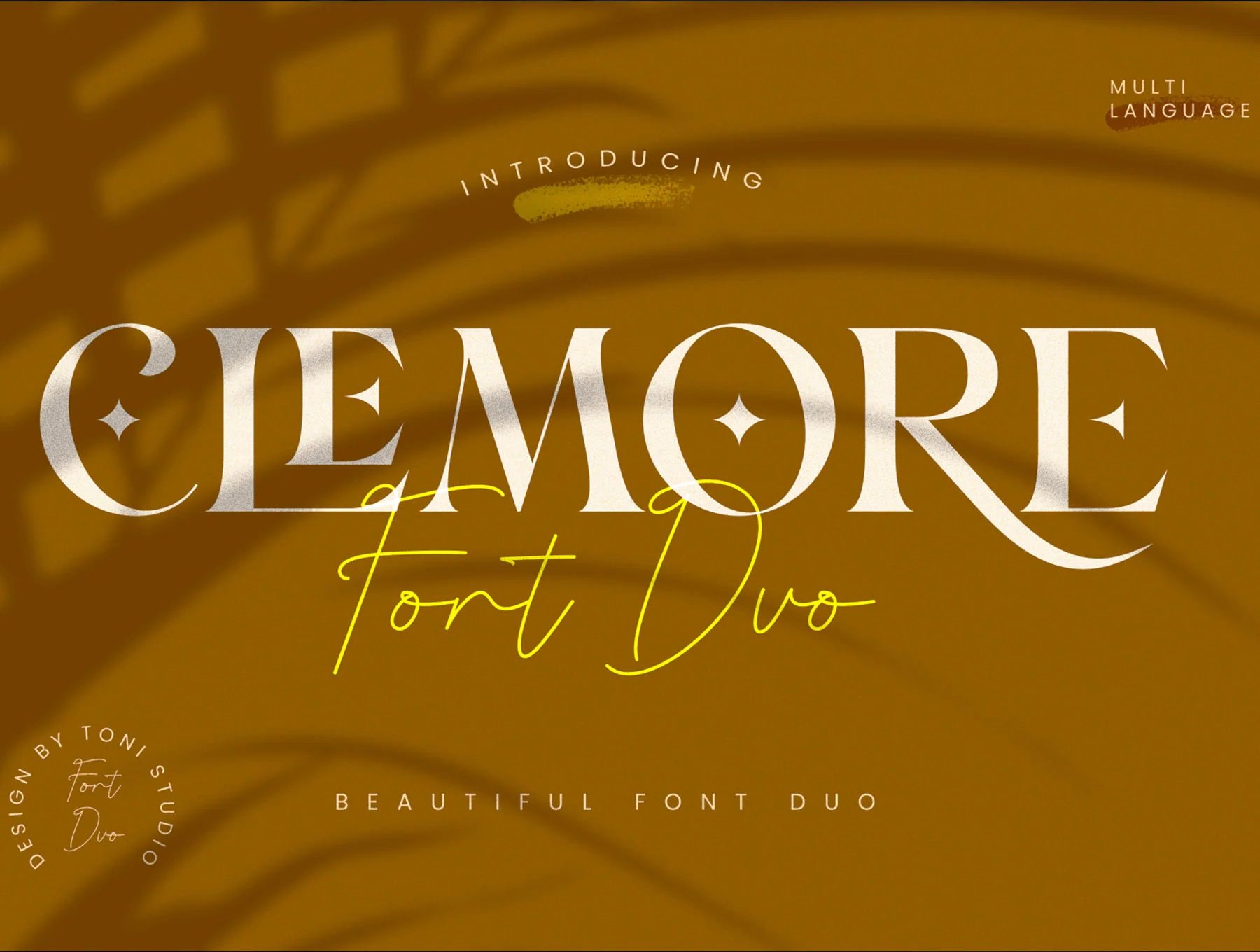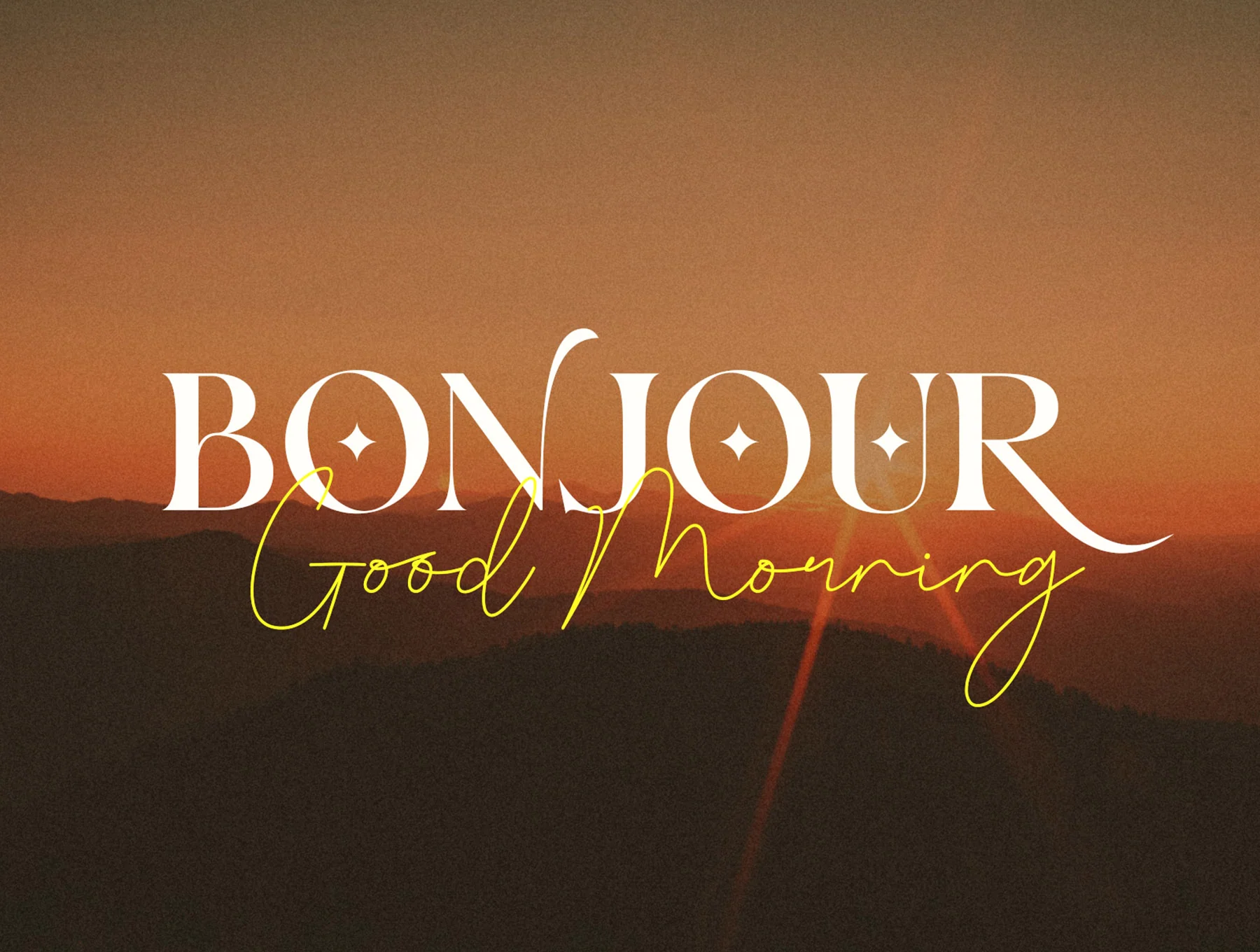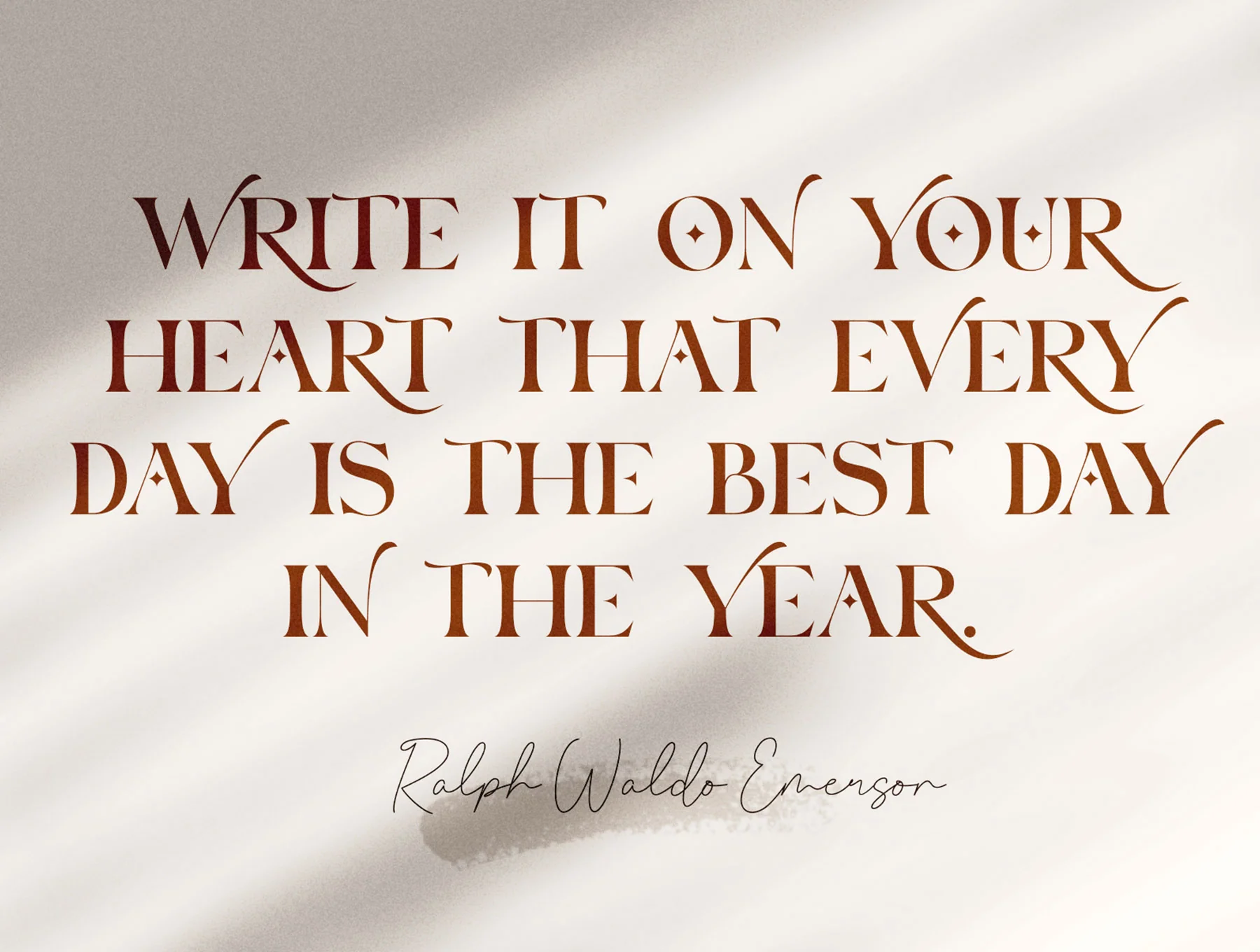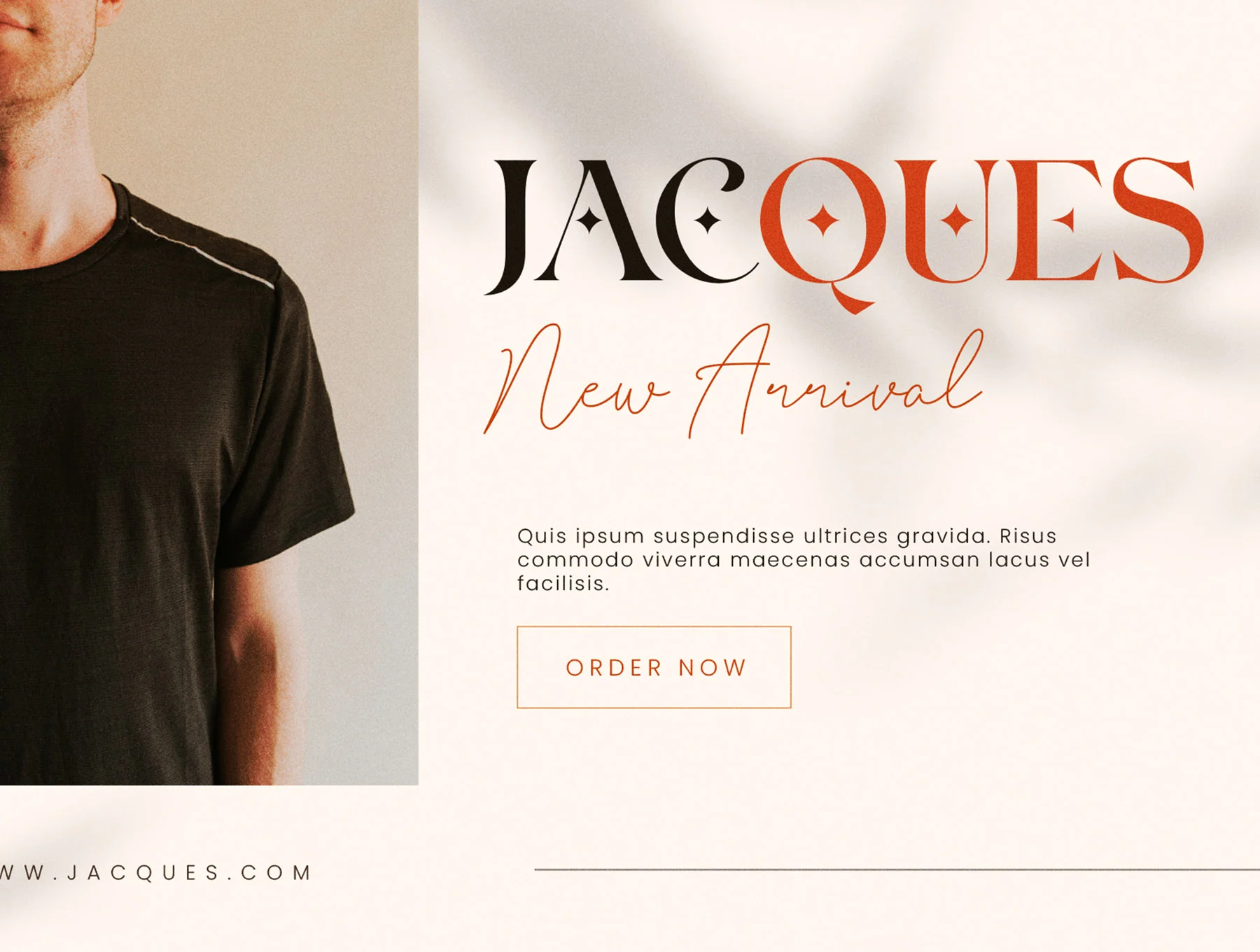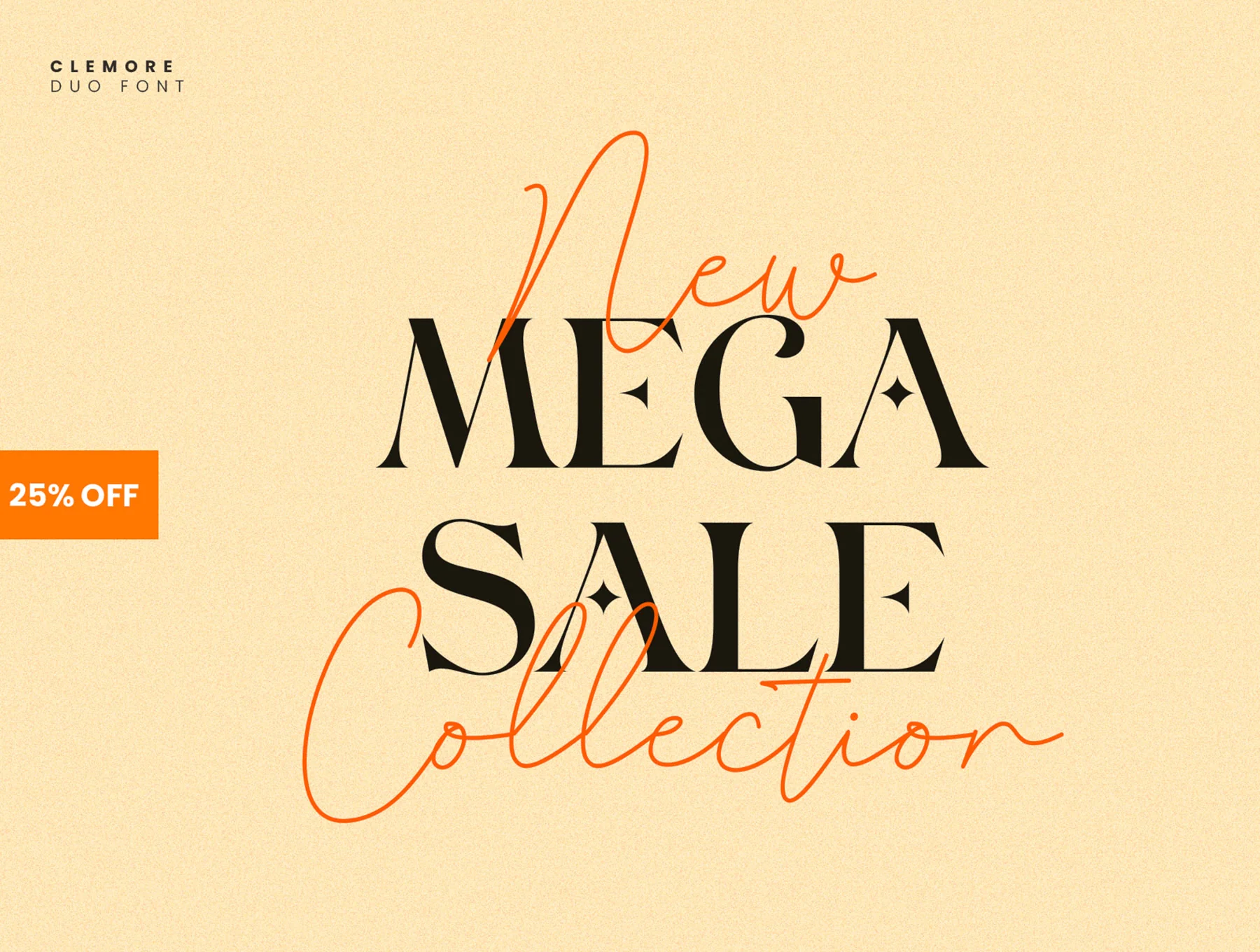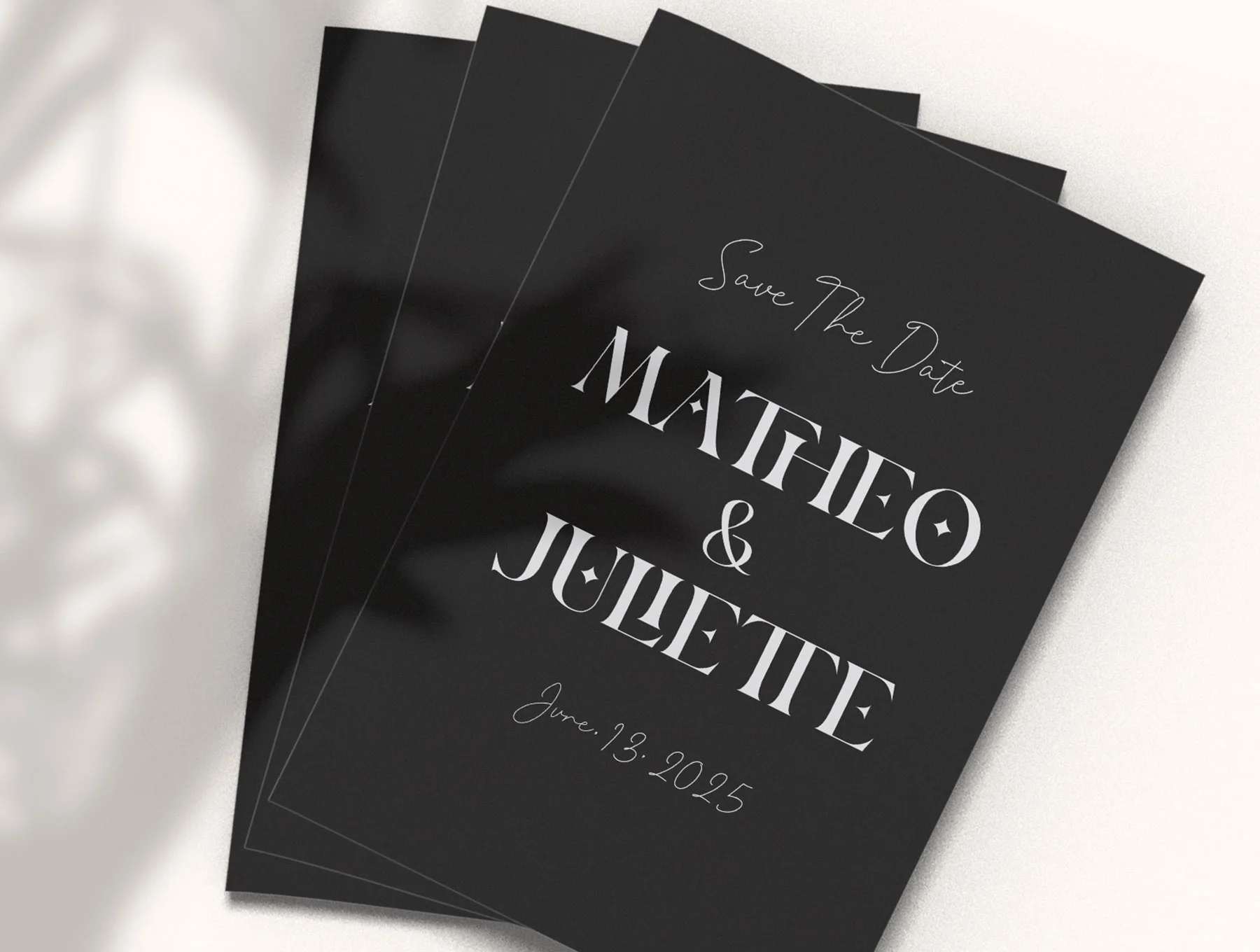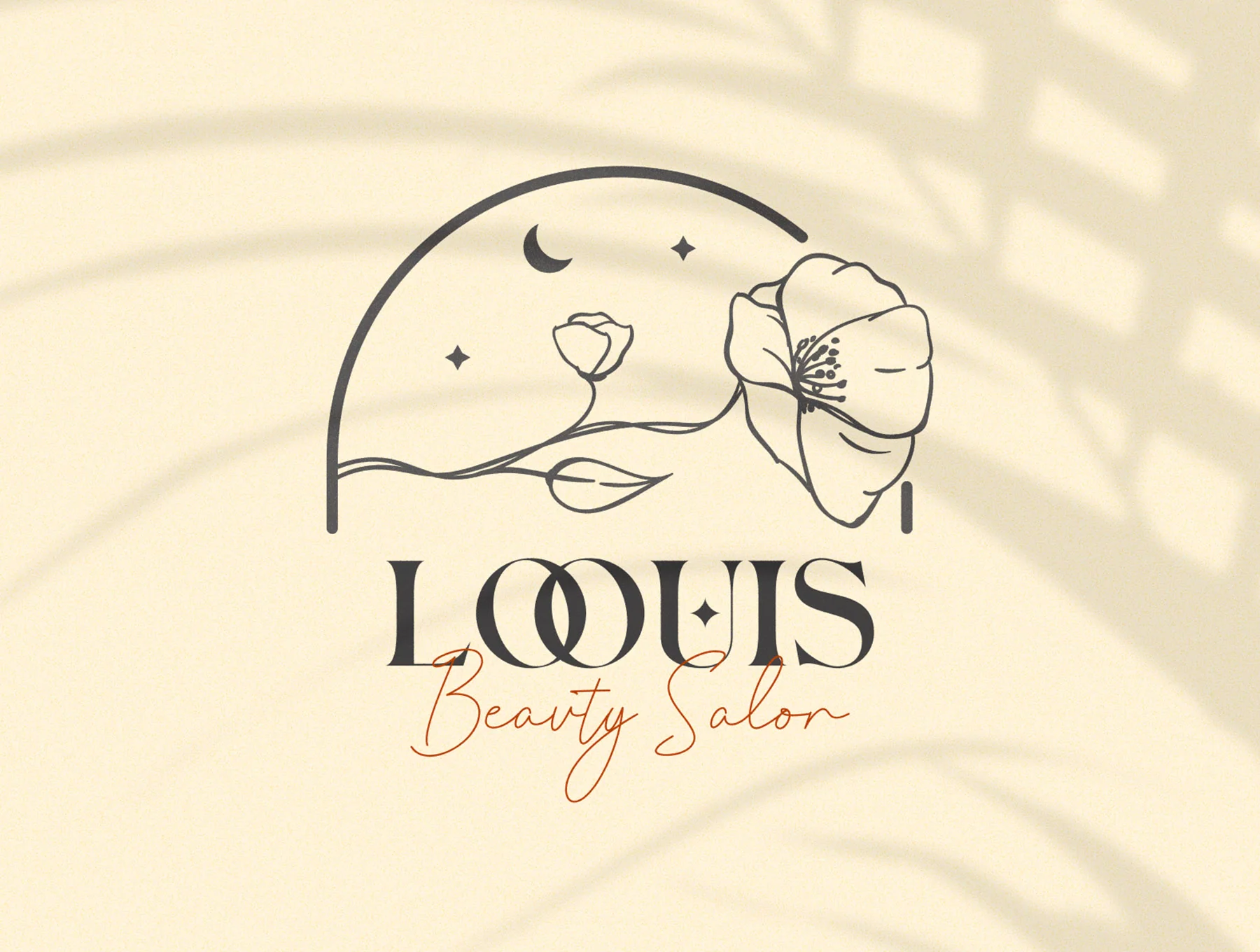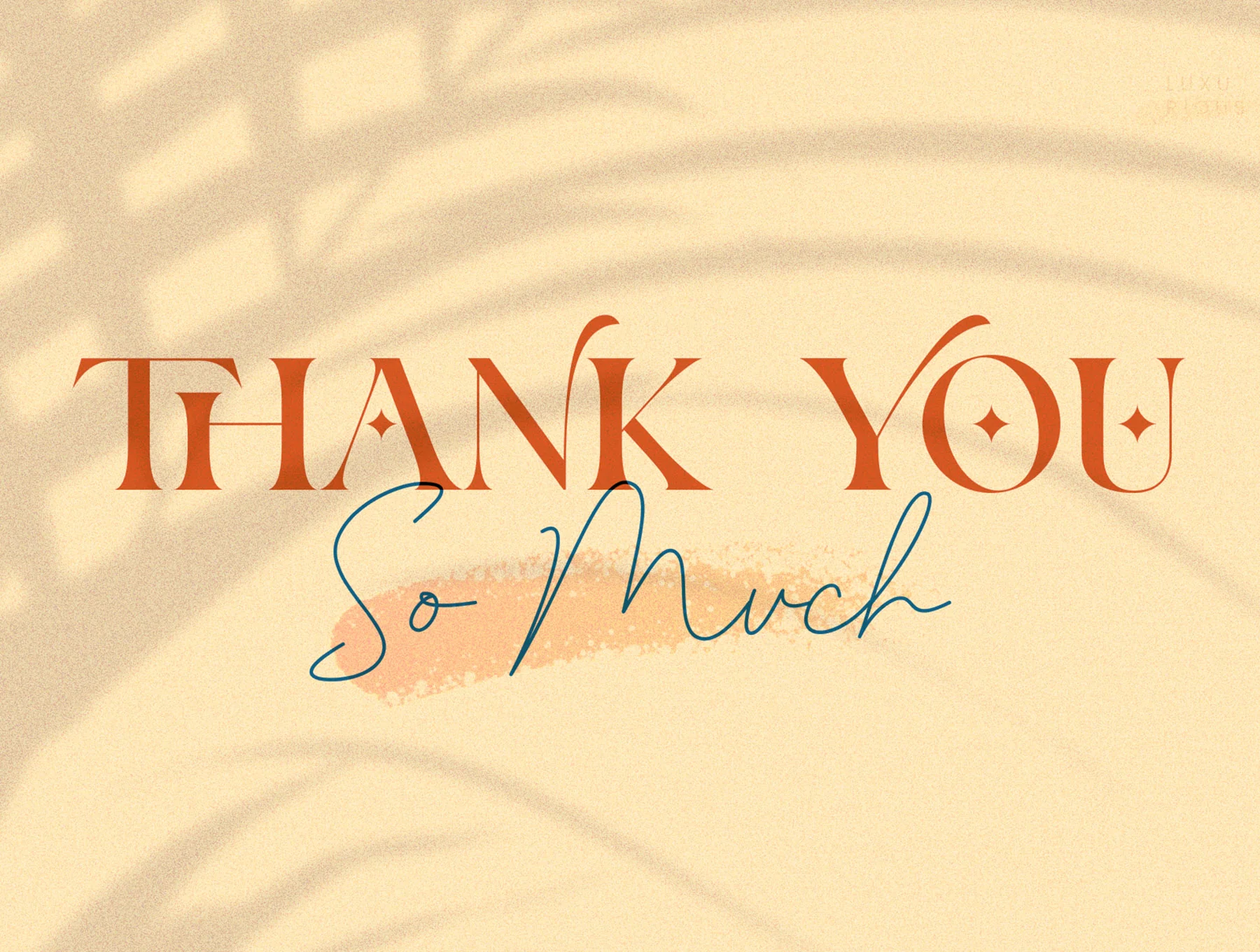
Clemore || Font Duo
Contemporary serif typeface
Clemore Font Duo pairs a refined modern serif with a graceful signature script. Its crisp strokes and flowing curves suit logos, wedding stationery, quotes, display lettering, and many creative projects. Includes Clemore Serif, Clemore Script, OTF and TTF files, plus WOFF web fonts. Thanks for visiting my shop.